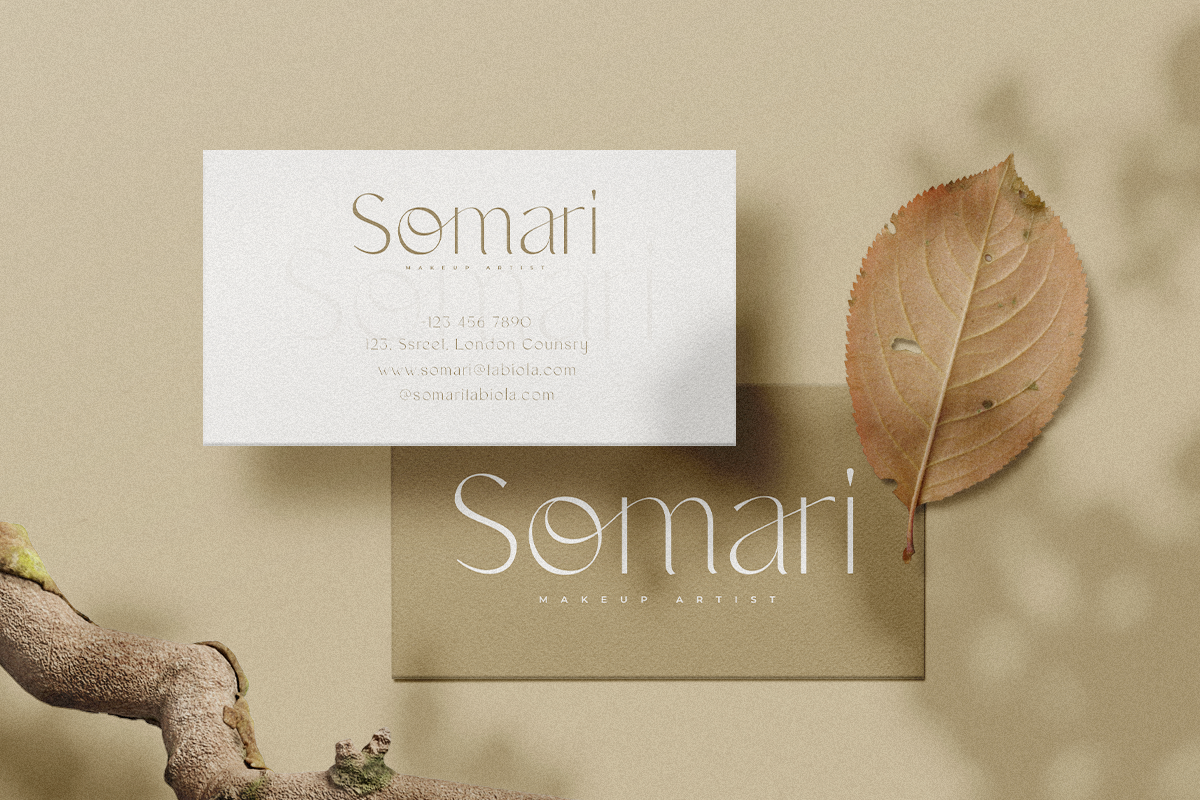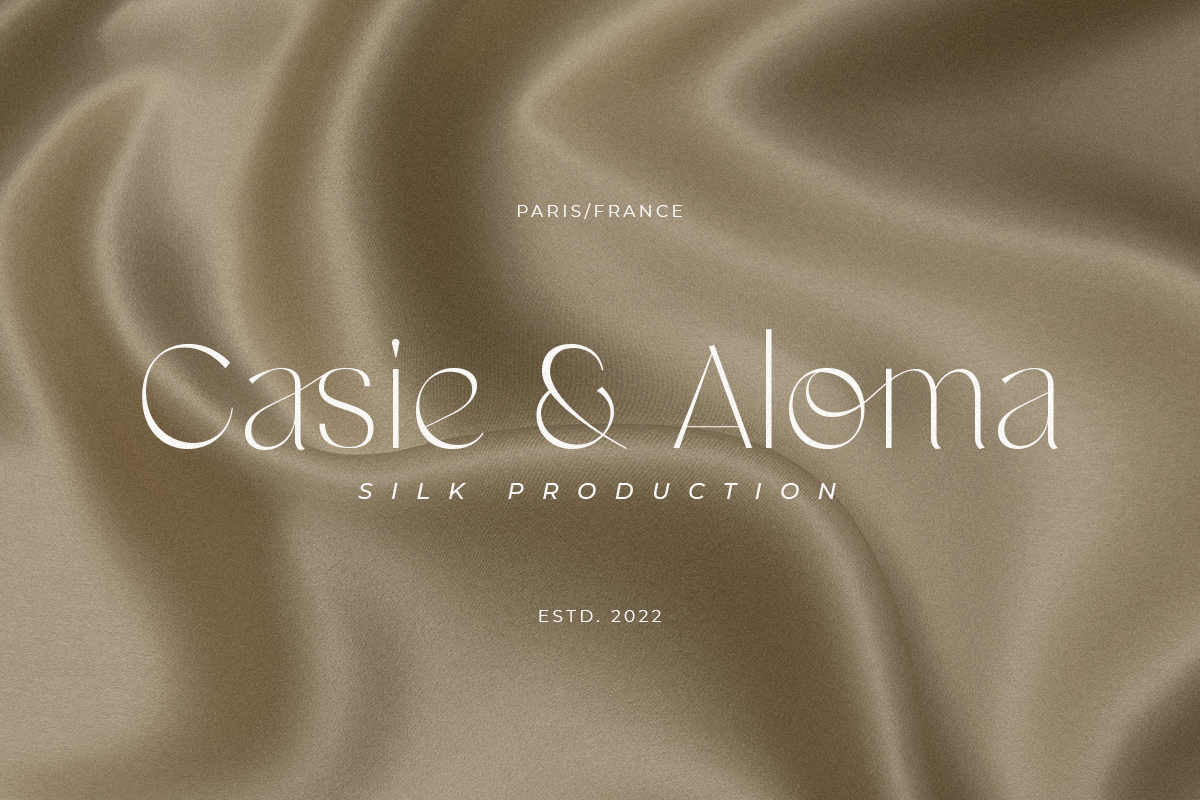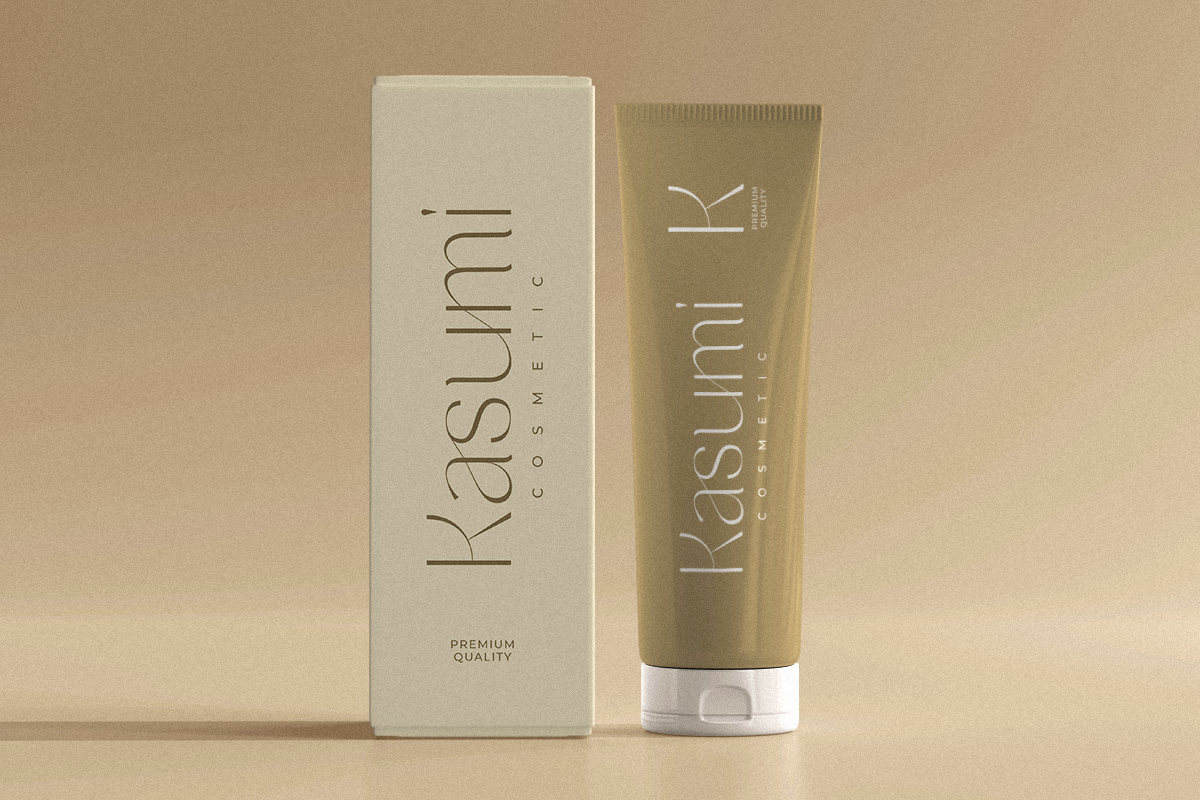
Noah – Elegant Ligature Font. A new font that we created special for branding needs, with extra ligature in unique characters add value of your brand to look more elegant. It’s so nice to leverage designer or product owner that need solutions to make their design look more stylish and modern. And specially for Noah font, We prepared any ligatures, and any alternate characters to help you create unlimited variations for your creative needs.
Noah ready with:
- Any options to get creative variations (combination of Alternate and Ligatures)
- Preview as a inspirations that you can do with Noah font
- Ready with Lowercase and Uppercase characters